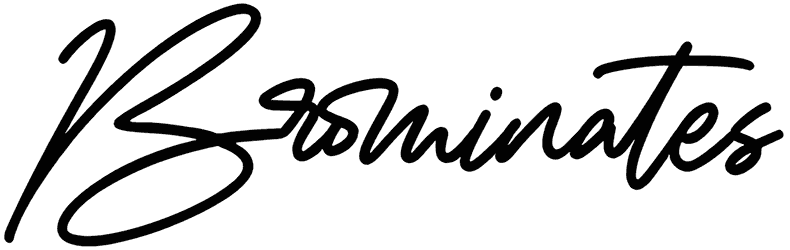
Brominates Font
Brominates, a handwritten font, will make your text look more casual and friendly. It’s great for giving your logos, invitations, flyers, and other designs some character. Brominates is a distinct, illegible font that resembles the irregular strokes and curves of real handwriting.